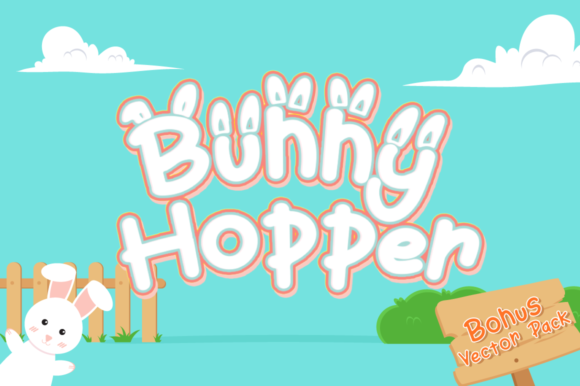
Get Ready to Hopper into Fun Design!
Who hasn’t experienced that magical moment when a spark of creativity strikes, and you can’t wait to bring your idea to life? For designers, it’s that moment when inspiration meets the perfect font – and today, we’re excited to introduce you to the lovable Bunny Hopper Font!
With its playful, fun, and fresh vibe, this delightful font is the perfect companion for any creative project. Available in two charming styles – Regular and bunny ear – the Bunny Hopper Font is designed to spark joy and inspire new design ideas. Whether you’re working on a children’s book, a playful advertisement, or a whimsical greeting card, this font is sure to add a touch of magic to your work.
Bunny Hopper Font Key Features
• Font Family: Bunny Hopper Font is a unique, hand-drawn font designed to evoke a playful and whimsical feel.
• Character Set: The font includes a wide range of characters, including uppercase and lowercase letters, numbers, punctuation, and special characters, making it suitable for various design applications.
• Unique Characteristics: The font features distinctive, rounded shapes and playful flourishes, making it an ideal choice for designs that require a touch of whimsy and personality.
Bunny Hopper Font Review
The Bunny Hopper Font is a quirky, hand-drawn font that can add a playful touch to any design project. ✨ I love how it captures the whimsy and charm of a rabbit’s hop, making it perfect for kids’ books, animations, and other fun projects. The font’s irregularities and imperfections also give it a unique, handmade feel that can be very appealing.
However, I do have a few reservations about this font. ⚠️ Firstly, the Bunny Hopper Font can be quite difficult to read in smaller sizes, especially in body text. This is because the font’s letterforms are quite complex and can be hard to distinguish when scaled down. Additionally, the font’s lack of bold or italic variations can limit its use in certain situations.
Overall, I think the Bunny Hopper Font is a fun and creative addition to any designer’s toolkit. While it may have some limitations, its unique personality and charm make it worth considering for the right project.
Pros and Cons:
• ✨ Unique, hand-drawn feel that adds a playful touch to designs
• ✨ Perfect for kids’ books, animations, and other fun projects
• ⚠️ Difficult to read in smaller sizes
• ⚠️ Lack of bold or italic variations
The Bunny Hopper font is perfect for creating whimsical and playful designs, such as:
– Children’s book illustrations
– Party invitations
– Branding materials for fun and quirky businesses
– To add a touch of playfulness to your designs, use the Bunny Hopper font in bold and italic styles.
Alternatives to Bunny Hopper Font
Comic Sans MS is a friendly, cursive font often used for informal and playful designs. It is ideal for children’s books, advertisements, and websites where a casual tone is desired.
Compared to Bunny Hopper Font, Comic Sans MS has a more relaxed and informal feel. While Bunny Hopper Font has a bouncy, energetic vibe, Comic Sans MS is more laid-back and easy-going.
Great Vibes is a modern, handwritten font that conveys a sense of optimism and joy. It is suitable for designs that require a touch of elegance and sophistication, such as wedding invitations, branding, and packaging.
Unlike Bunny Hopper Font, Great Vibes has a more refined and polished look. While Bunny Hopper Font is playful and energetic, Great Vibes is more sophisticated and elegant.
Pacifico is a beautiful, handwritten font that exudes a sense of relaxation and calmness. It is ideal for designs that require a touch of serenity, such as spa and wellness branding, travel websites, and outdoor gear advertising.
For optimal readability, we recommend using the Bunny Hopper Font at a minimum size of 12 points. However, this can vary depending on the specific design application and intended use. It’s always a good idea to test the font at different sizes to ensure the best results.